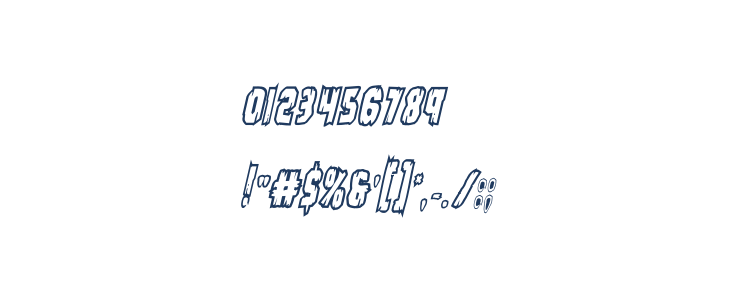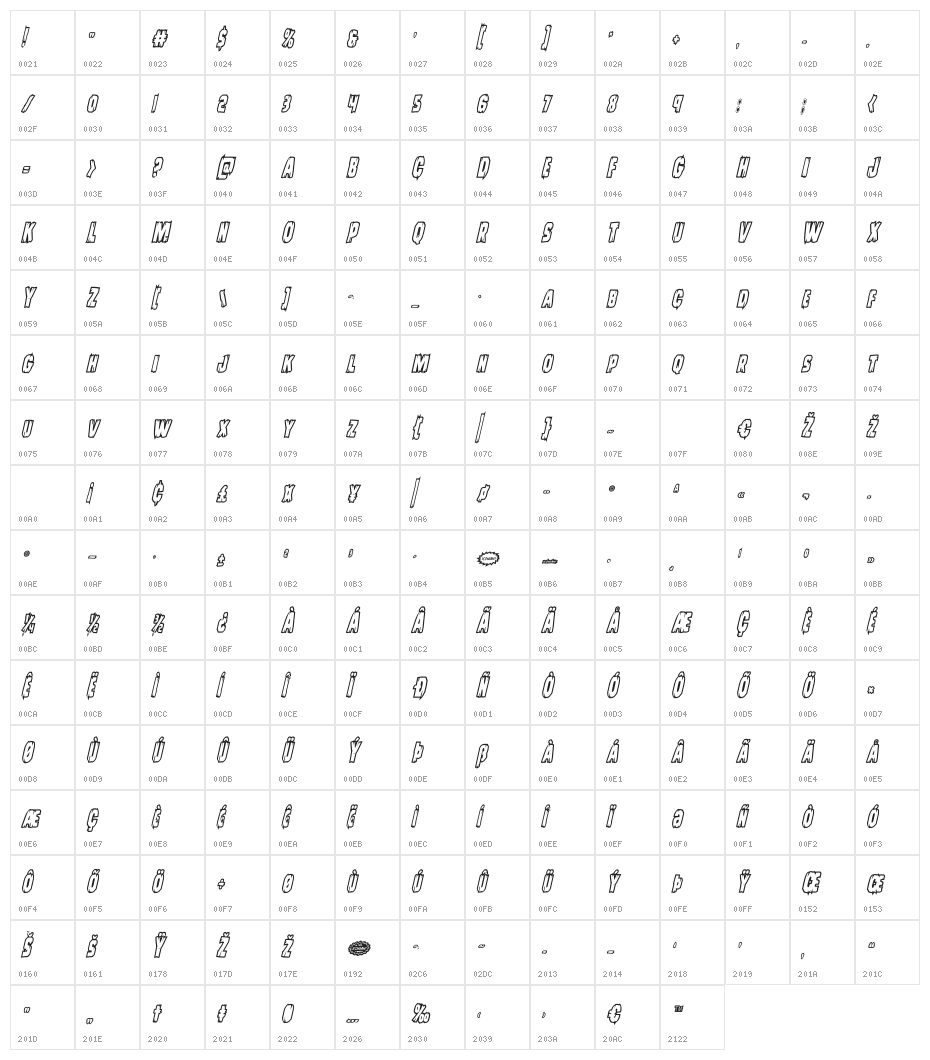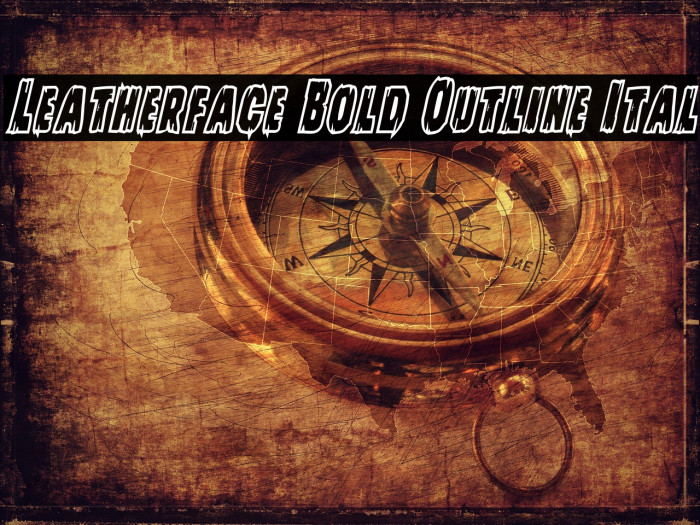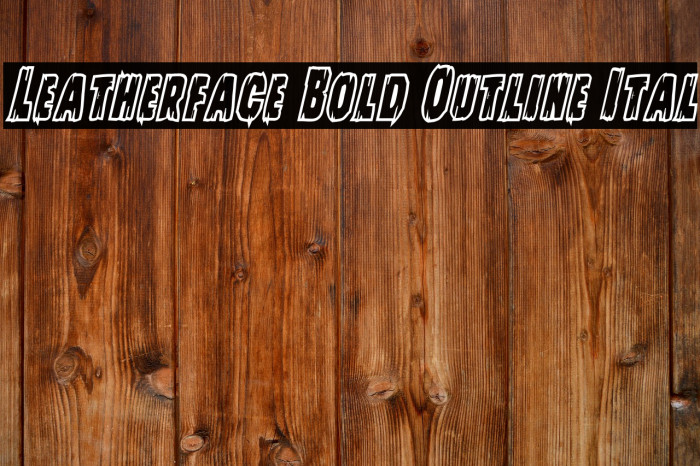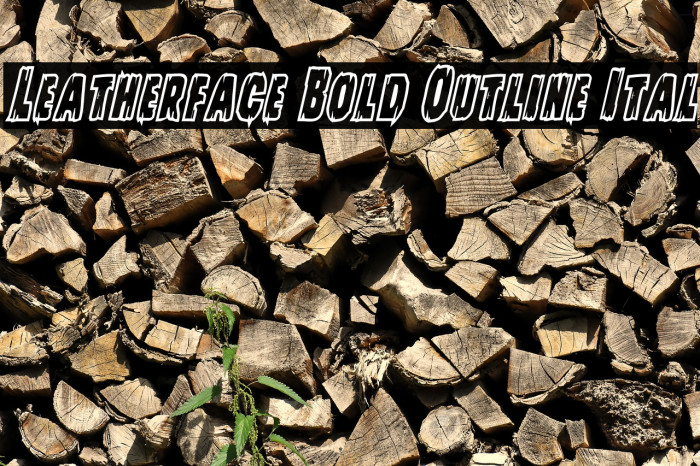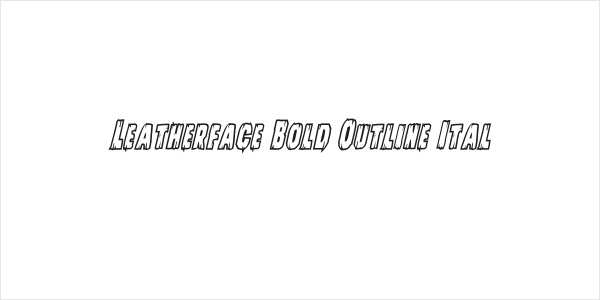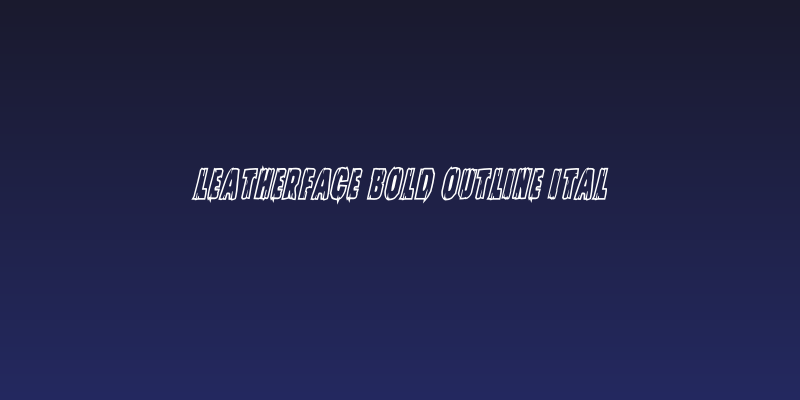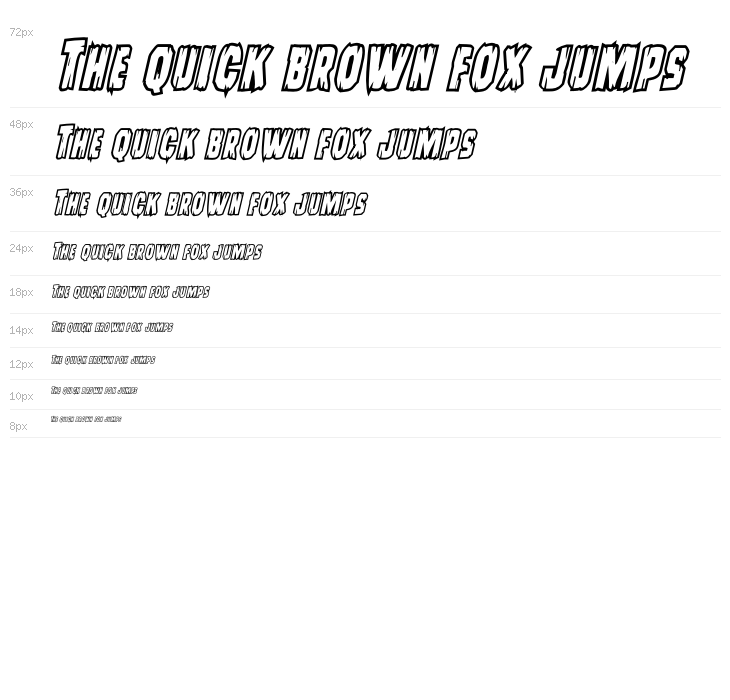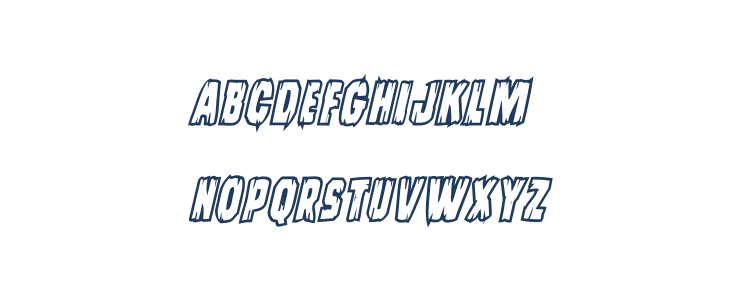
Leatherface Bold Outline Ital Font
Leatherface Bold Outline Ital Description
This font features a bold, outlined style with a distinct italic slant, giving it a dynamic and edgy appearance. The characters are designed with sharp, jagged edges and a slightly distressed look, adding a sense of movement and intensity. The uppercase and lowercase letters maintain a consistent style, with the numbers and special characters following suit. The outline effect enhances the boldness, making it stand out prominently. This font is ideal for projects that require a dramatic and impactful visual presence.